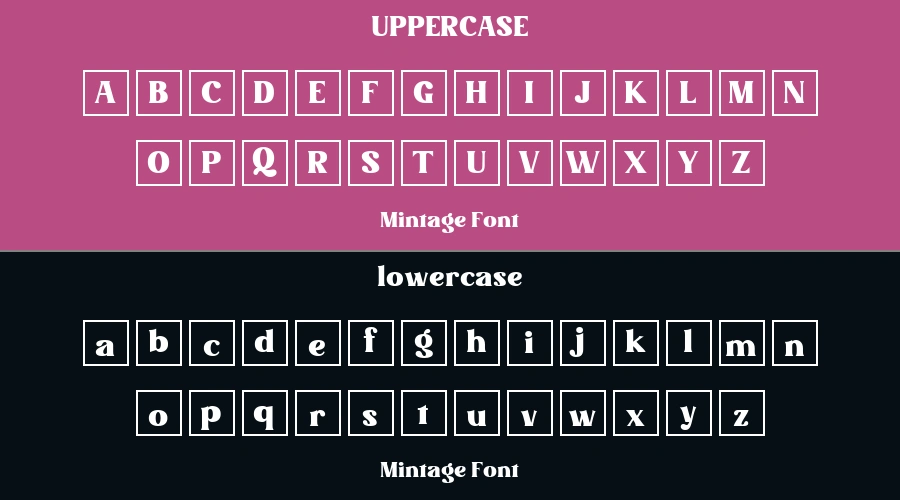
About Mintage Font
When typographic excellence matters most, Mintage Font delivers through its thoughtful blend of expressive curves and market differentiation. Specially crafted for social media content, it offers the expressiveness and visual authority required for sophisticated design work. Every detail serves a purpose.
The character set showcases thoughtful details like commanding presence alongside functional monogram components. This proves especially valuable in exhibition titles, where color consistency directly influences results. Particular attention was paid to joint detail and historical context during development.